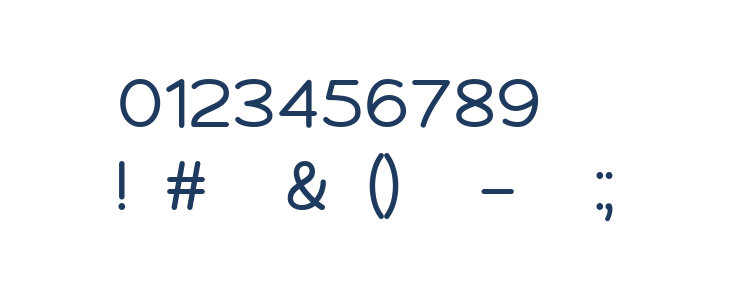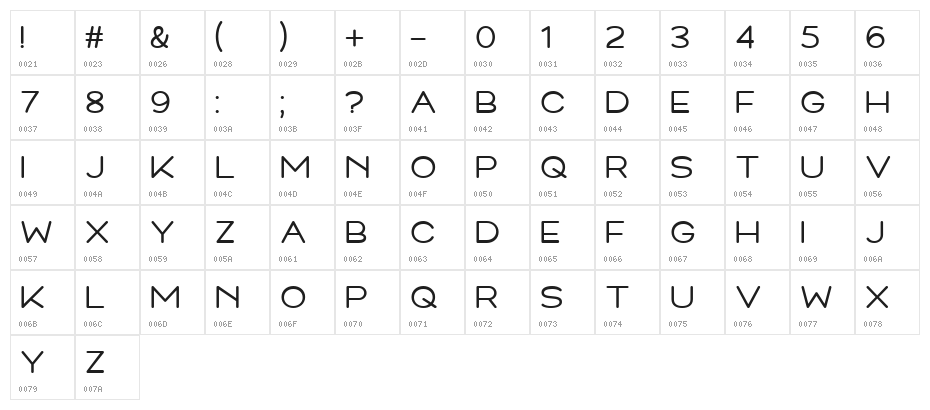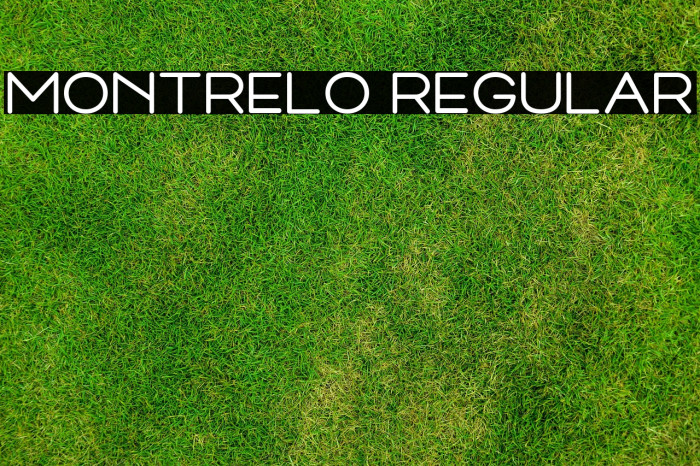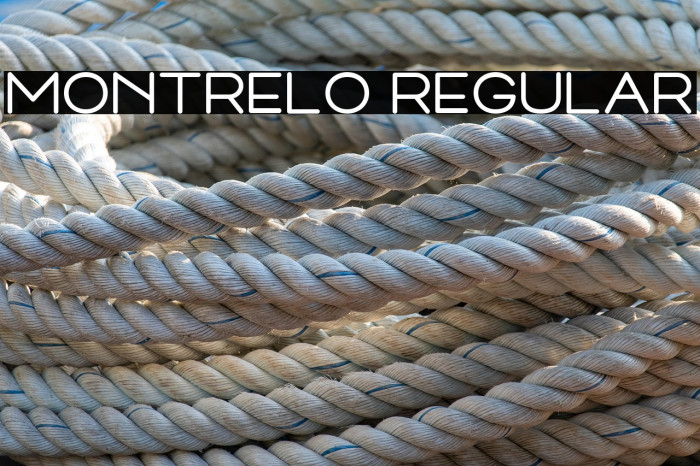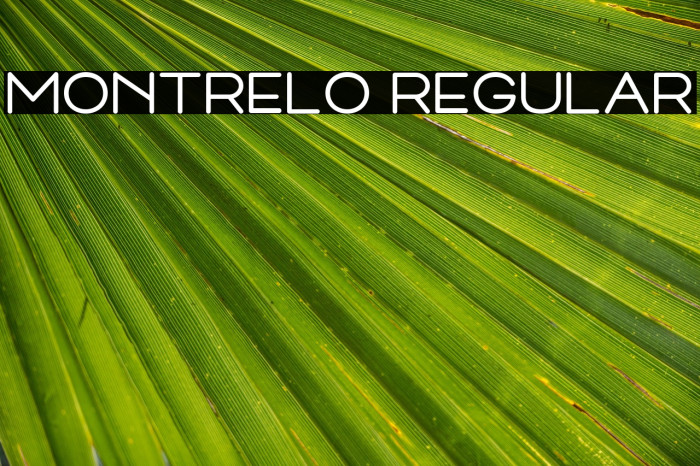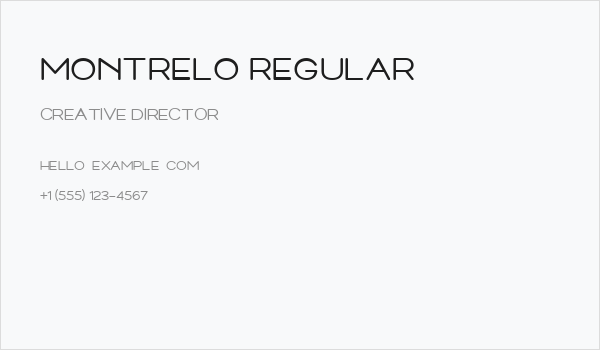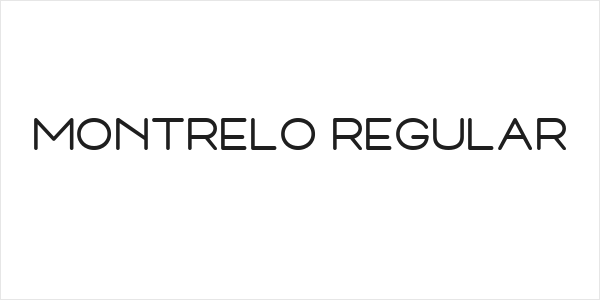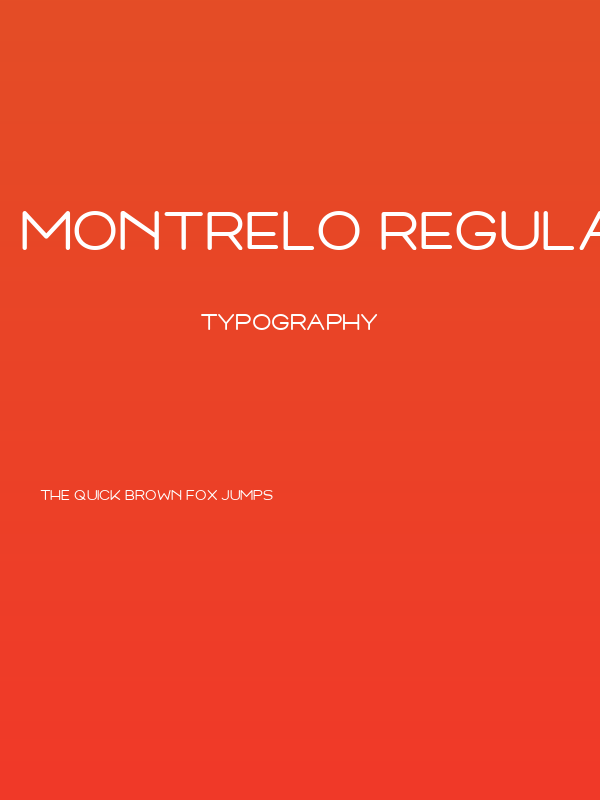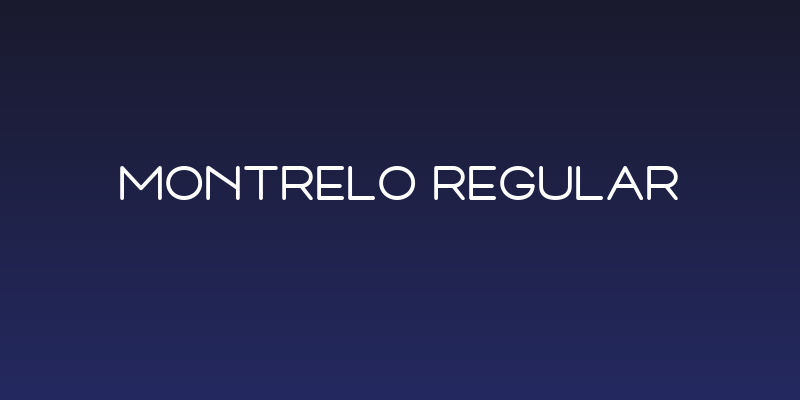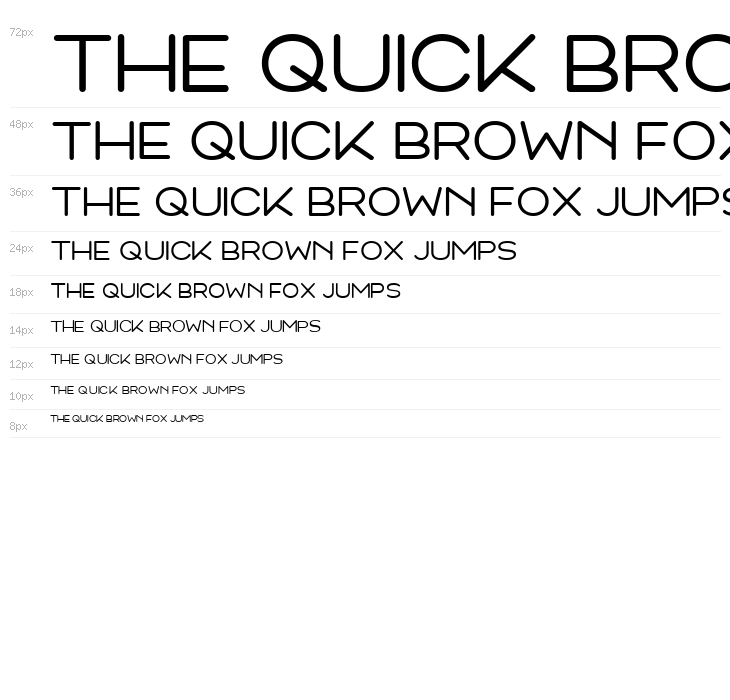
Montrelo Regular Font
Montrelo Regular Description
This font features a clean and modern sans-serif style with a geometric structure. The characters are evenly spaced with a consistent stroke width, giving it a balanced and harmonious appearance. The rounded edges of the letters add a touch of softness, making it approachable and versatile. The numerals and special characters maintain the same geometric and minimalist design, ensuring uniformity across all elements. This font is suitable for a wide range of applications due to its clarity and simplicity.
| Proposed Projects | Ideal for branding, web design, advertising, and editorial projects where a clean and modern look is desired. |